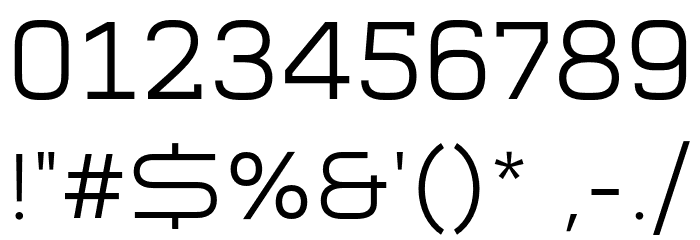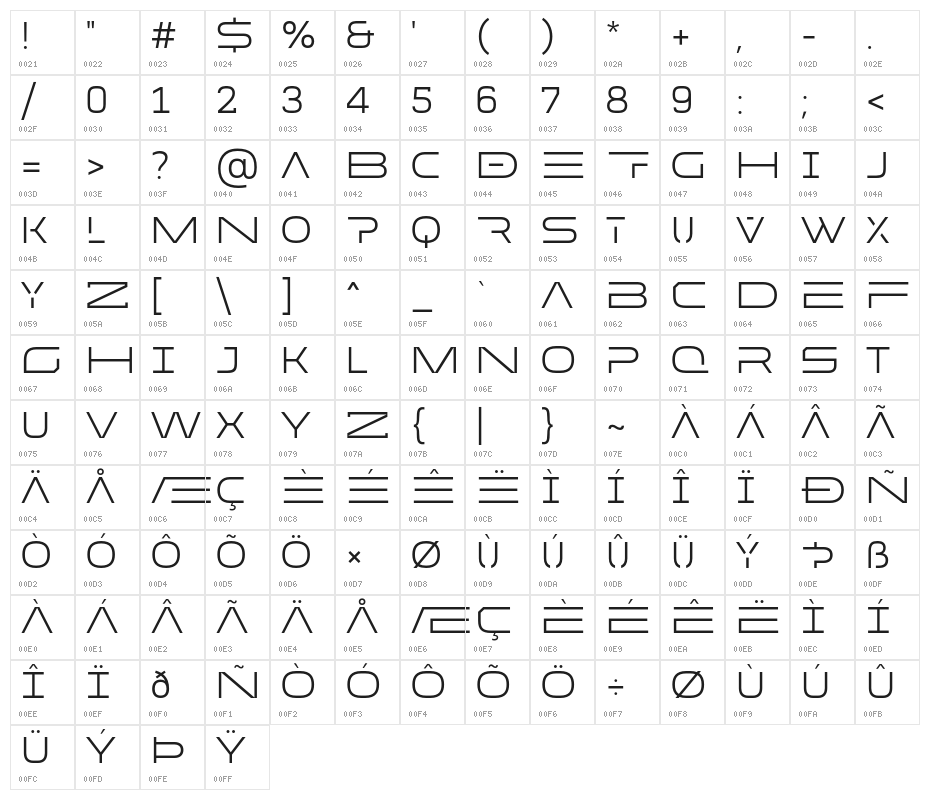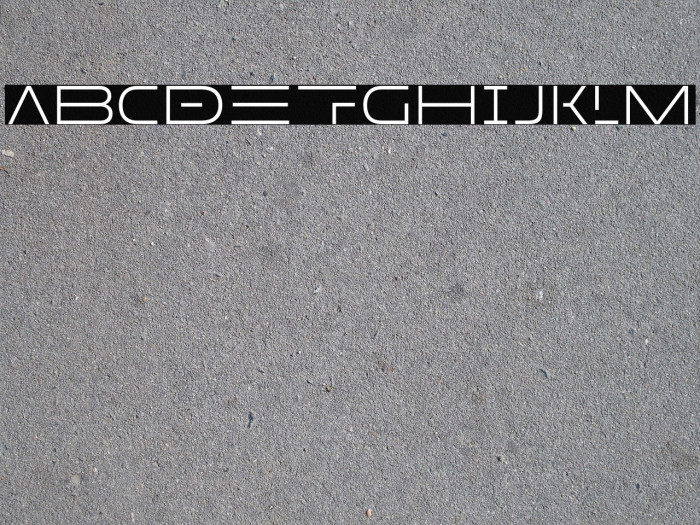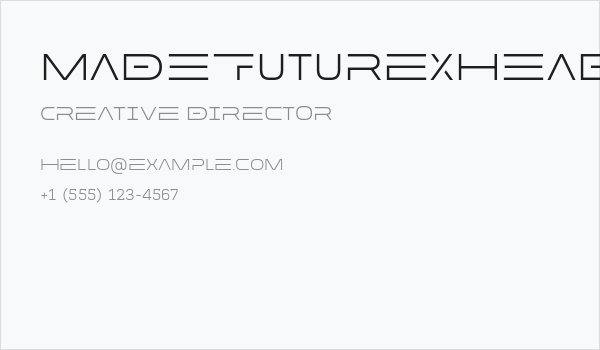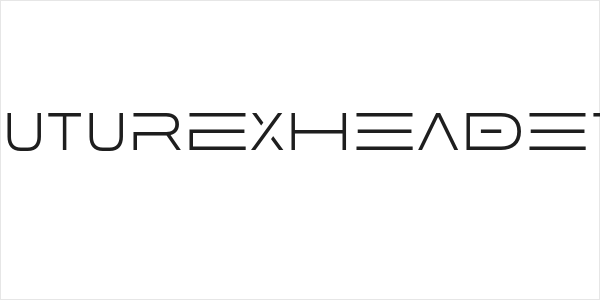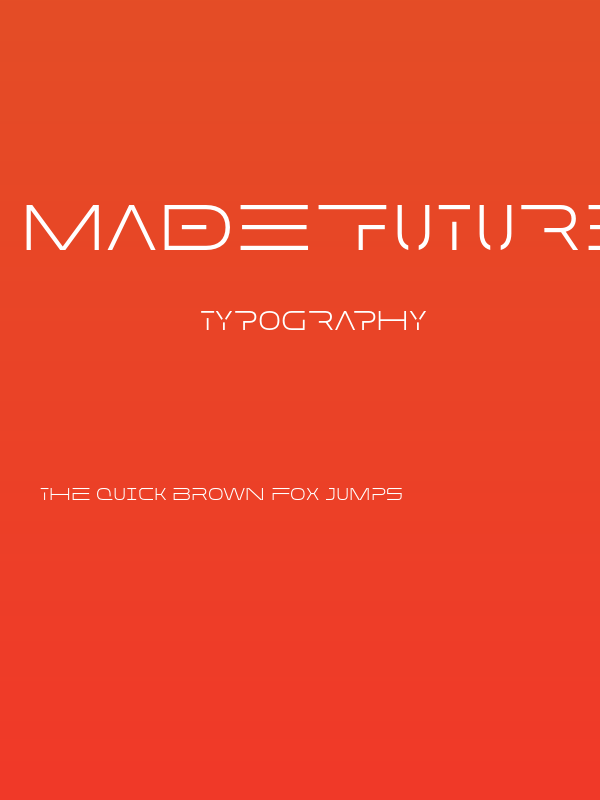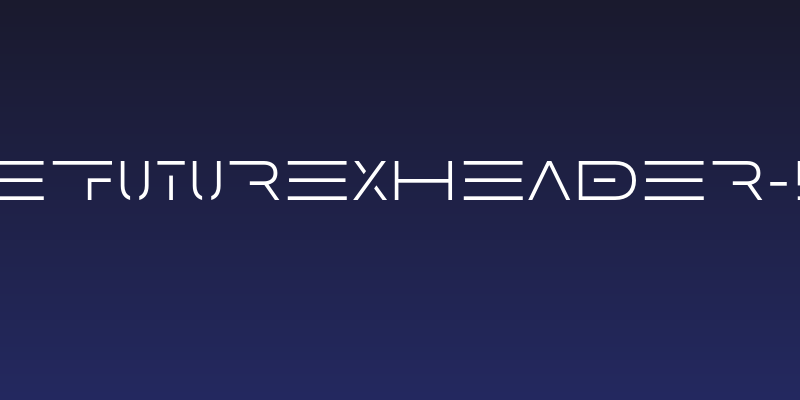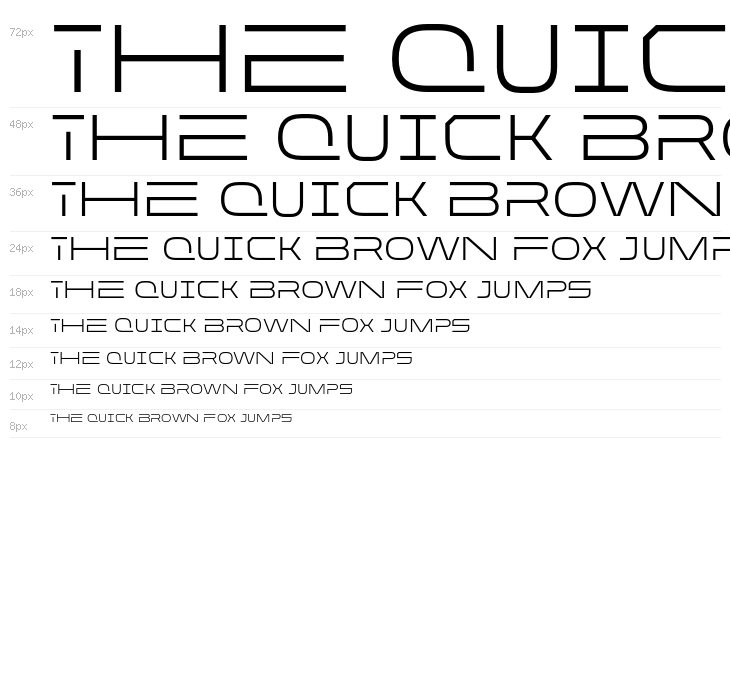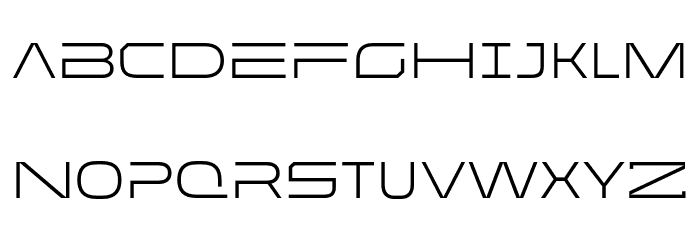
MADEFutureXHEADER-Light Font
MADEFutureXHEADER-Light Description
This font features a sleek and futuristic design with geometric elements and a minimalist aesthetic. The uppercase letters are characterized by their clean lines and sharp angles, giving a modern and technical feel. The lowercase letters maintain a consistent style, complementing the uppercase with their streamlined forms. Numbers are bold and clear, ensuring readability. Special characters are designed to match the overall futuristic theme, with a focus on symmetry and balance. The font's light weight adds to its elegance, making it suitable for contemporary designs.